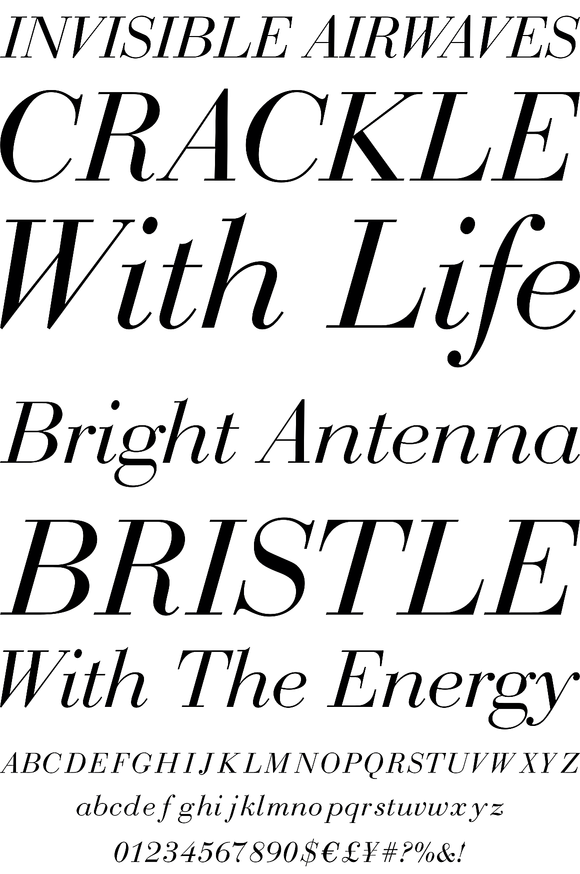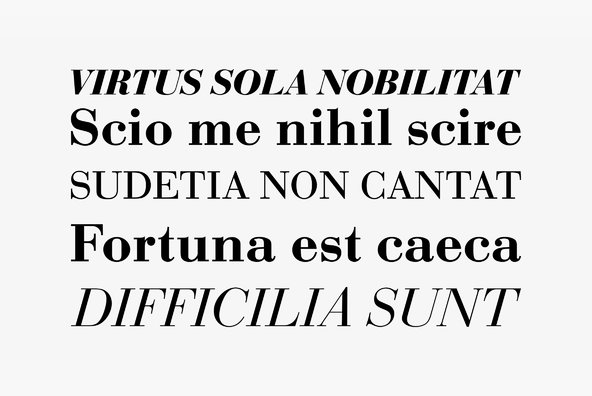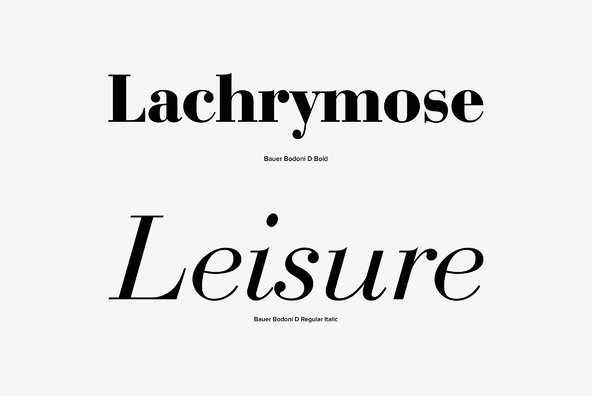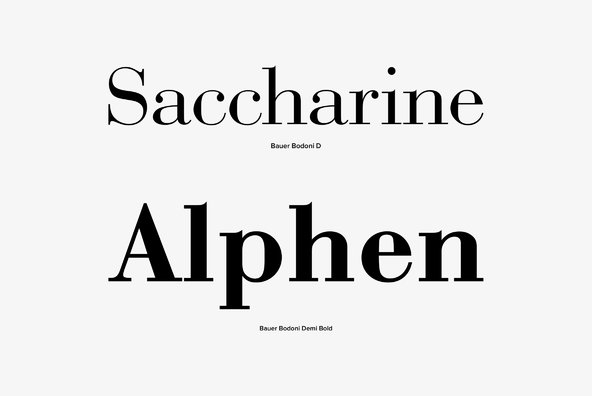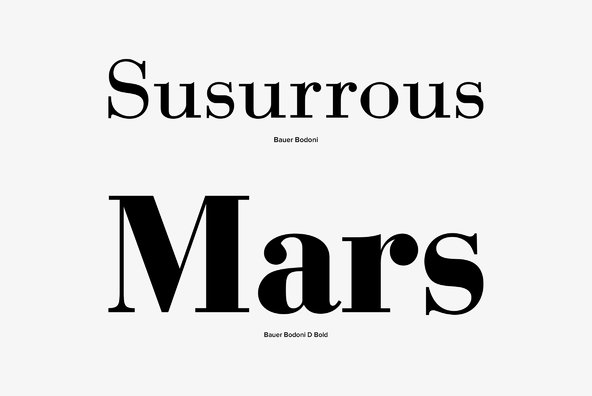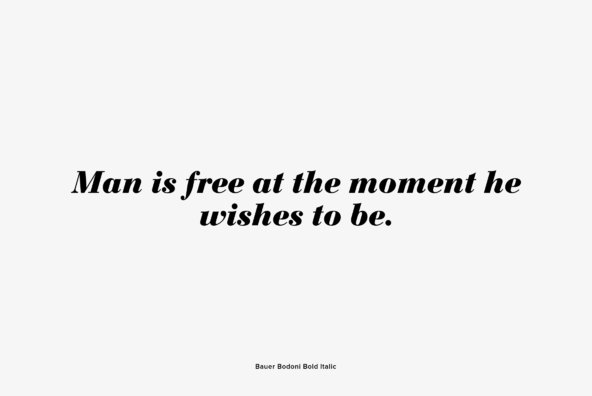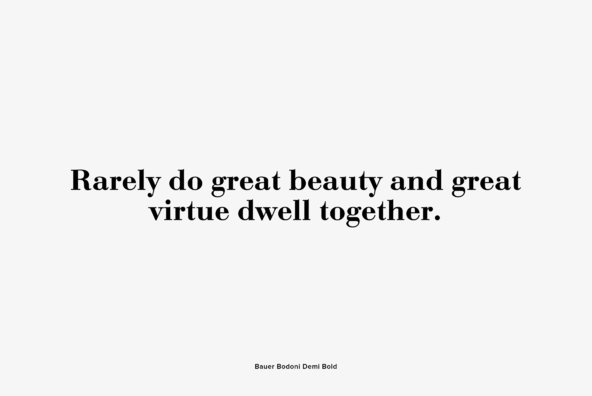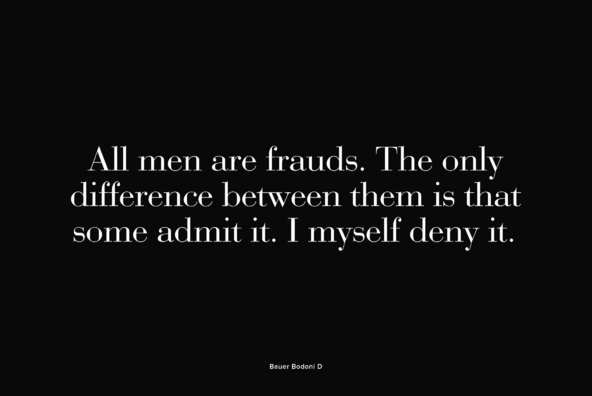
Bauer Bodoni
Bauer Bodoni is a variation of the Bodoni typeface, this font was released by Heinrich Jost in the year 1926 for the Bauer Type foundry in Frankfurt, Germany. Heinrich Jost was the artistic director of the foundry from 1923 to 1948, period in which he designed this font which was punch cut by Louis Hoell. The form of this typeface is closely related to the Bodoni, but considered more delicate and graceful than other bodoni variants. This font looks specially fine at large point sizes, and can make a stately presence in any sumptuous magazine, lavish book, or dignified website.